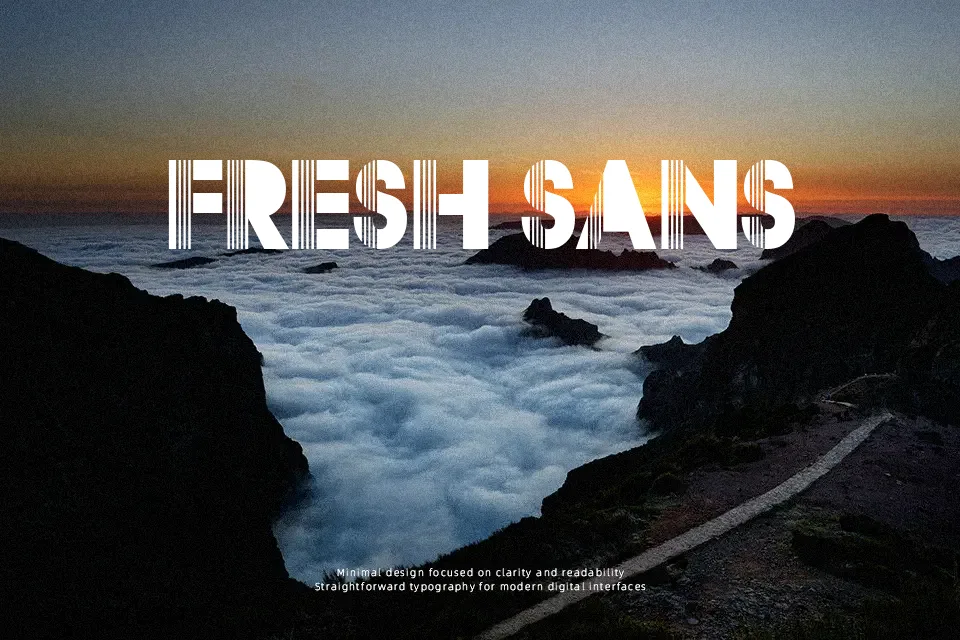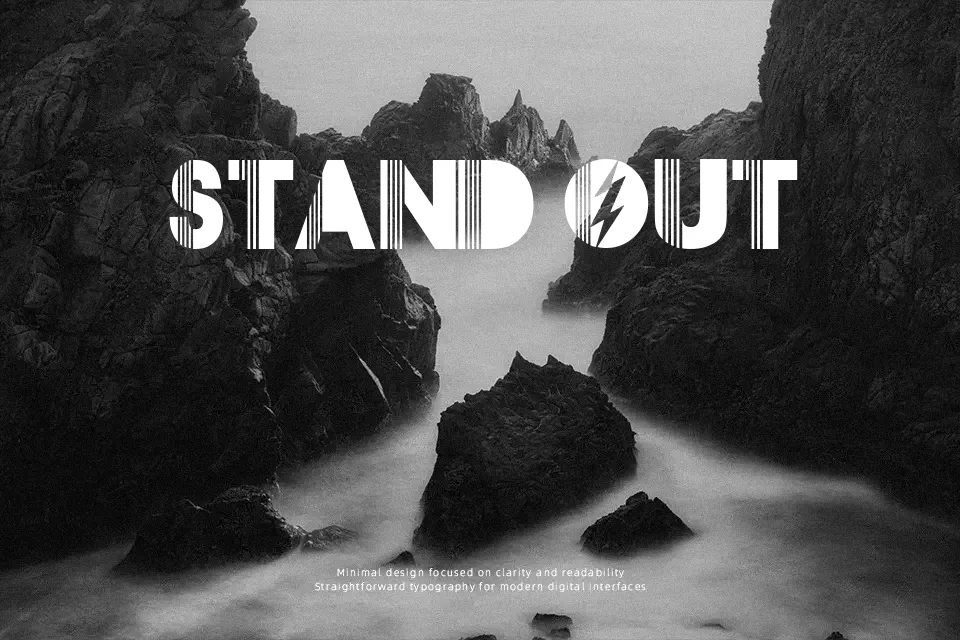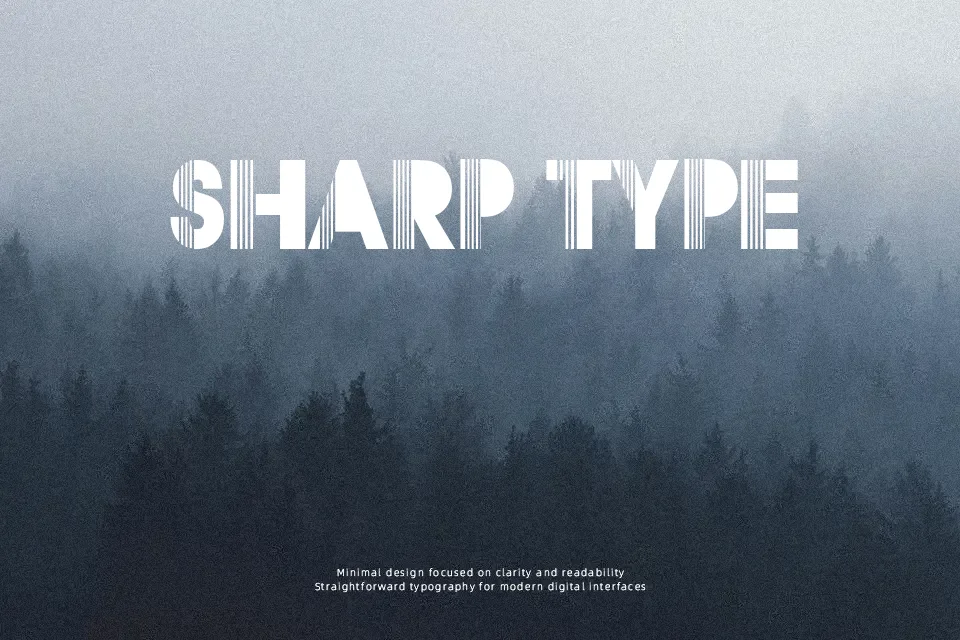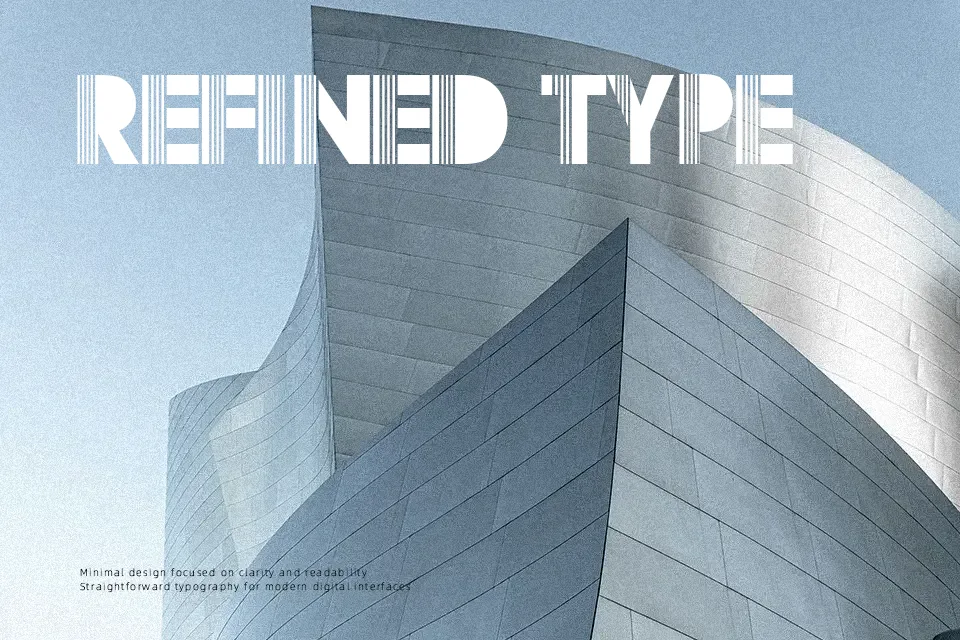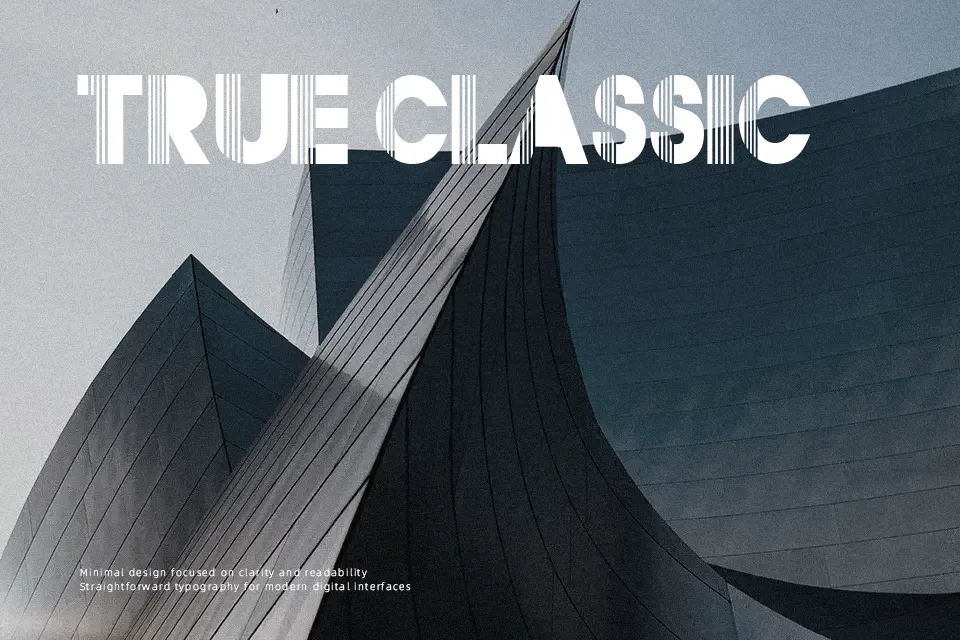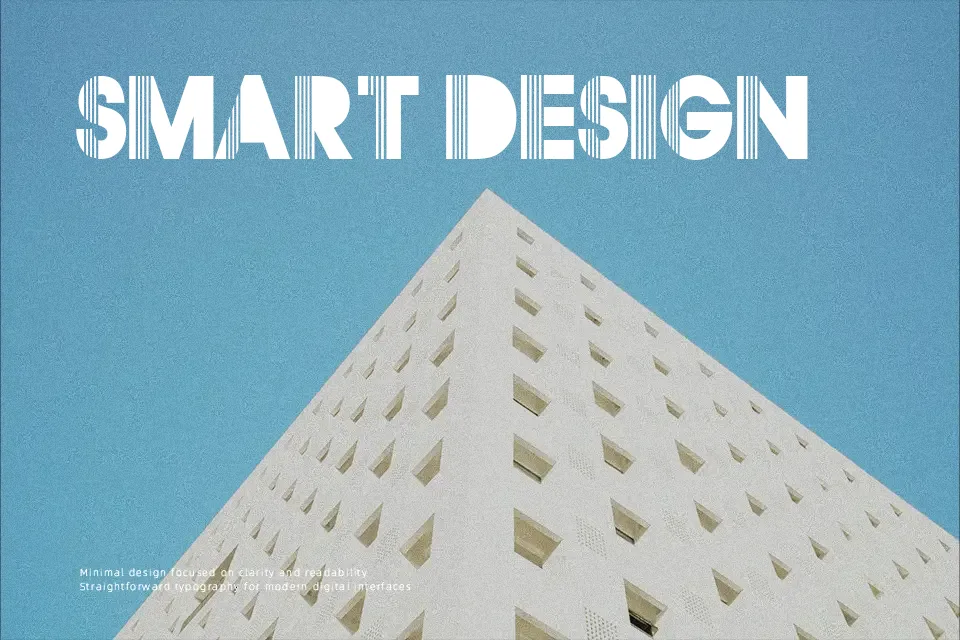
Segurl Font
Characterized by solid geometric structures and fragmented vertical cuts, Segurl Font presents an edgy typographic presence tailored for large-scale applications. The typeface relies on uniform heavy stroke weights and squared proportions, producing a rigid industrial rhythm across uppercase letterforms. Tight tracking and closed inner counters maximize visual density across headlines, though this compact spacing limits legibility whenever text is scaled down to smaller sizes. The letterforms maintain sharp definition on screen and print at prominent display scales. Dense layouts and extended body copy become difficult to read, making the design most effective when restricted to short titles, club flyers, and bold branding marks.
Best For: electronic music posters,techno event branding,apparel graphics,large headline banners
Not Ideal For: continuous body text,small interface labels,dense editorial layouts,legal documentation